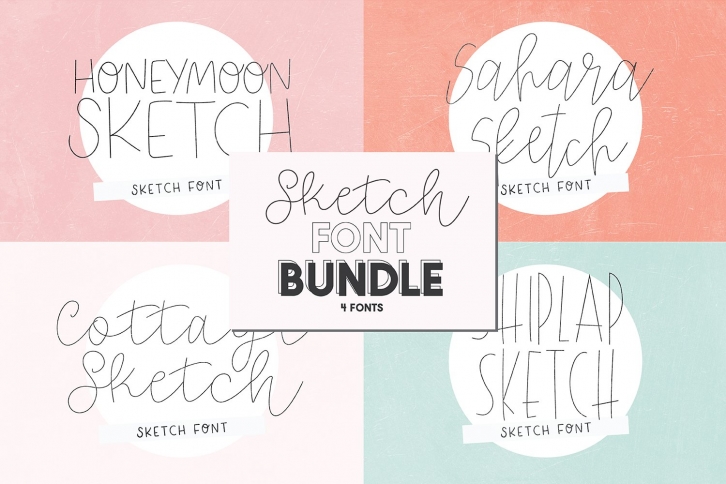
SKETCH BUNDLE is a gorgeous font that was realeased on November 23, 2020. The font can be used in many style contexts and design environments. Perfect for invitations, magazines, websites, logos, and more! It was designed by Dixie Type Co and the file size is 7.50 MB. Thanks for checking out this font!